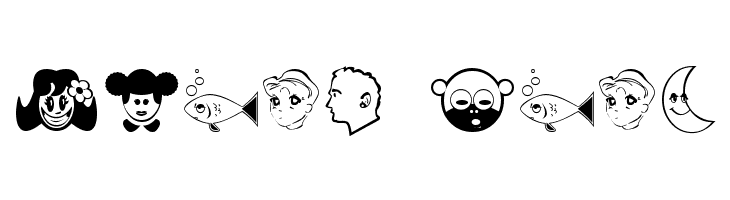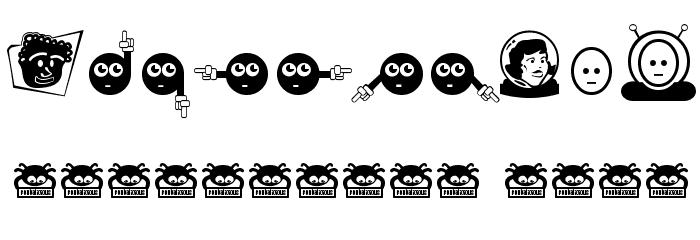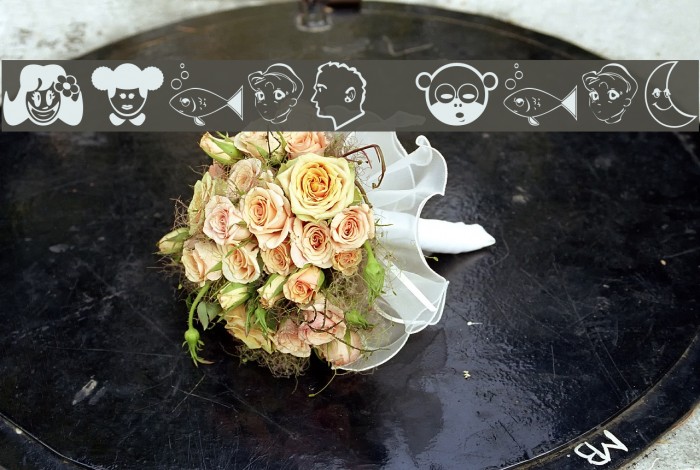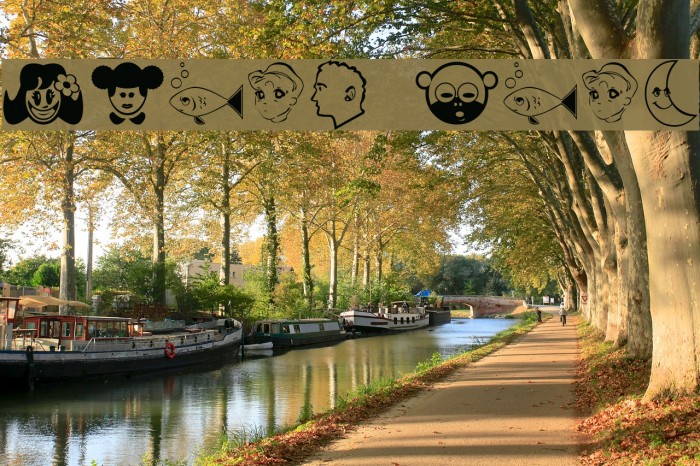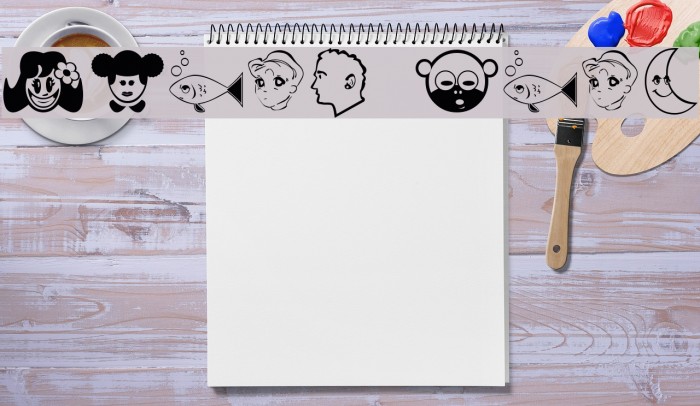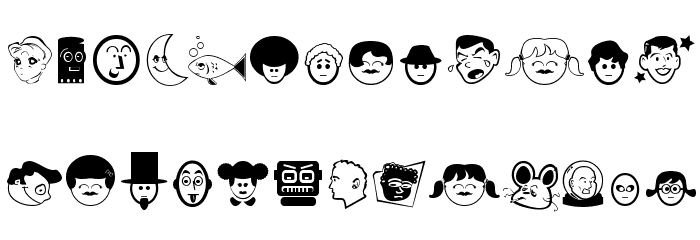
Great Head Font
Great Head Description
A playful and highly decorative dingbat font composed entirely of quirky, cartoon-style faces and character illustrations, each glyph representing a unique and expressive head or emoticon. The style is bold, with thick and thin line variations, and features both filled and outlined forms, emphasizing humor and whimsy.
| Overall Style | Playful, Whimsical, Cartoonish, Decorative |
| Use Case | Icons, Decorative elements, Themed graphics, Informal projects |
| Proposed Projects | Children's books, comic strips, party invitations, playful branding, stickers, digital avatars, educational materials. |